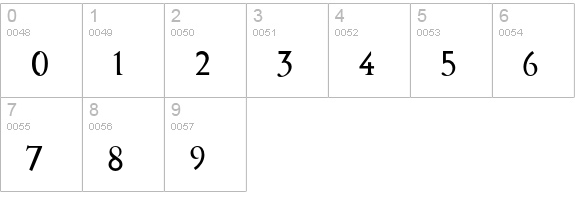
Prototype-Regular Font Details
Prototype-Regular is the standard, neutral variant in the Prototype typeface family \xE2\x80\x94 well suited to general body text, paragraphs, and standard typographic work.
Prototype-Regular is a versatile and modern typeface that exudes elegance and simplicity. With its clean lines and balanced proportions, this font is perfect for a wide range of design projects, whether it's for branding, advertising, or editorial purposes. Its timeless appeal makes it a go-to choice for designers looking to make a statement. What sets Prototype-Regular apart is not only its aesthetic appeal but also its accessibility. This font is available for free download at FontsMarket.com, making it easily accessible to designers and creatives looking to elevate their work with a sophisticated touch. Whether you're a seasoned professional or a novice designer, Prototype-Regular is a valuable addition to your font library, offering endless possibilities for creative expression.